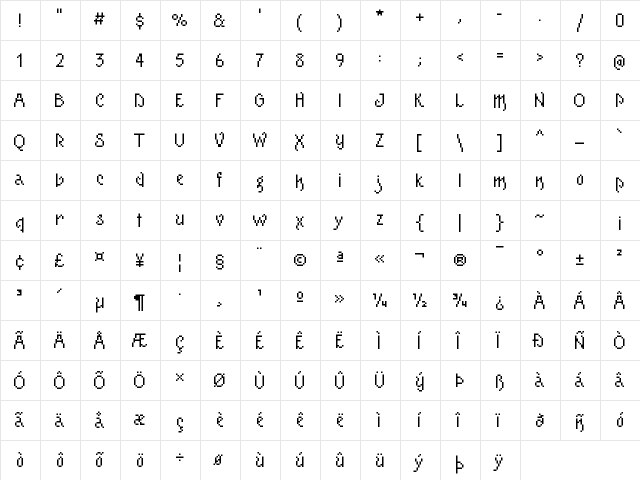
Cartridge Medium
Design Context for Cartridge Typeface
Cartridge offers clean, dependable letterforms without strong stylistic allegiance, making it a practical choice for designers who need flexibility.
Pro Tip: Use Cartridge in both headline and body roles to test its range before committing to a single application.